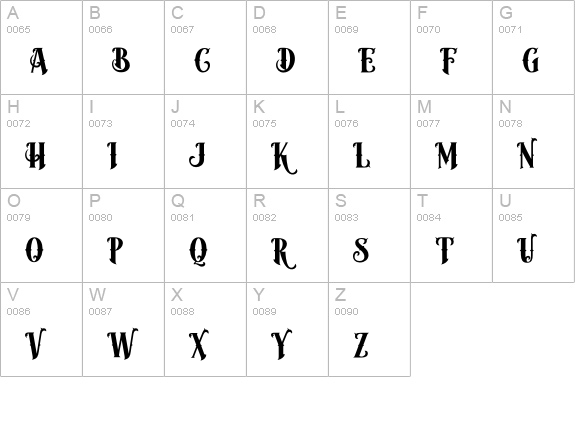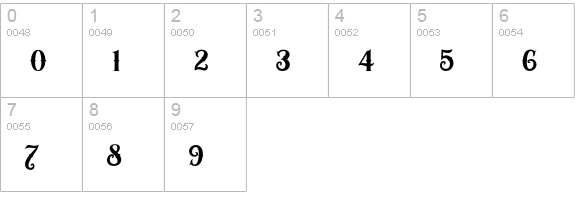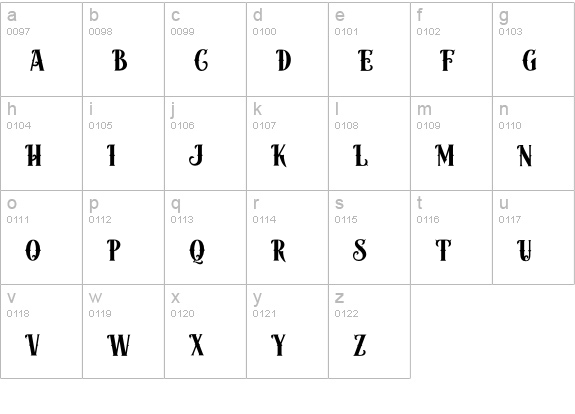
Moyers Font Details
Introducing Moyers font, a versatile and elegant typeface that effortlessly combines modern sophistication with classic charm. Its clean lines and balanced proportions make it perfect for a wide range of design projects, from branding to editorial layouts. Moyers font features a timeless aesthetic that exudes professionalism and refinement, making it an ideal choice for creating impactful designs that leave a lasting impression. Whether you're working on a corporate identity, a magazine spread, or a website design, Moyers font will add a touch of elegance and sophistication to your work. Best of all, Moyers font is available for free download at FontsMarket.com, making it easily accessible to designers and creatives looking to elevate their projects with a touch of timeless sophistication. Download Moyers font today and add a touch of class to your designs.